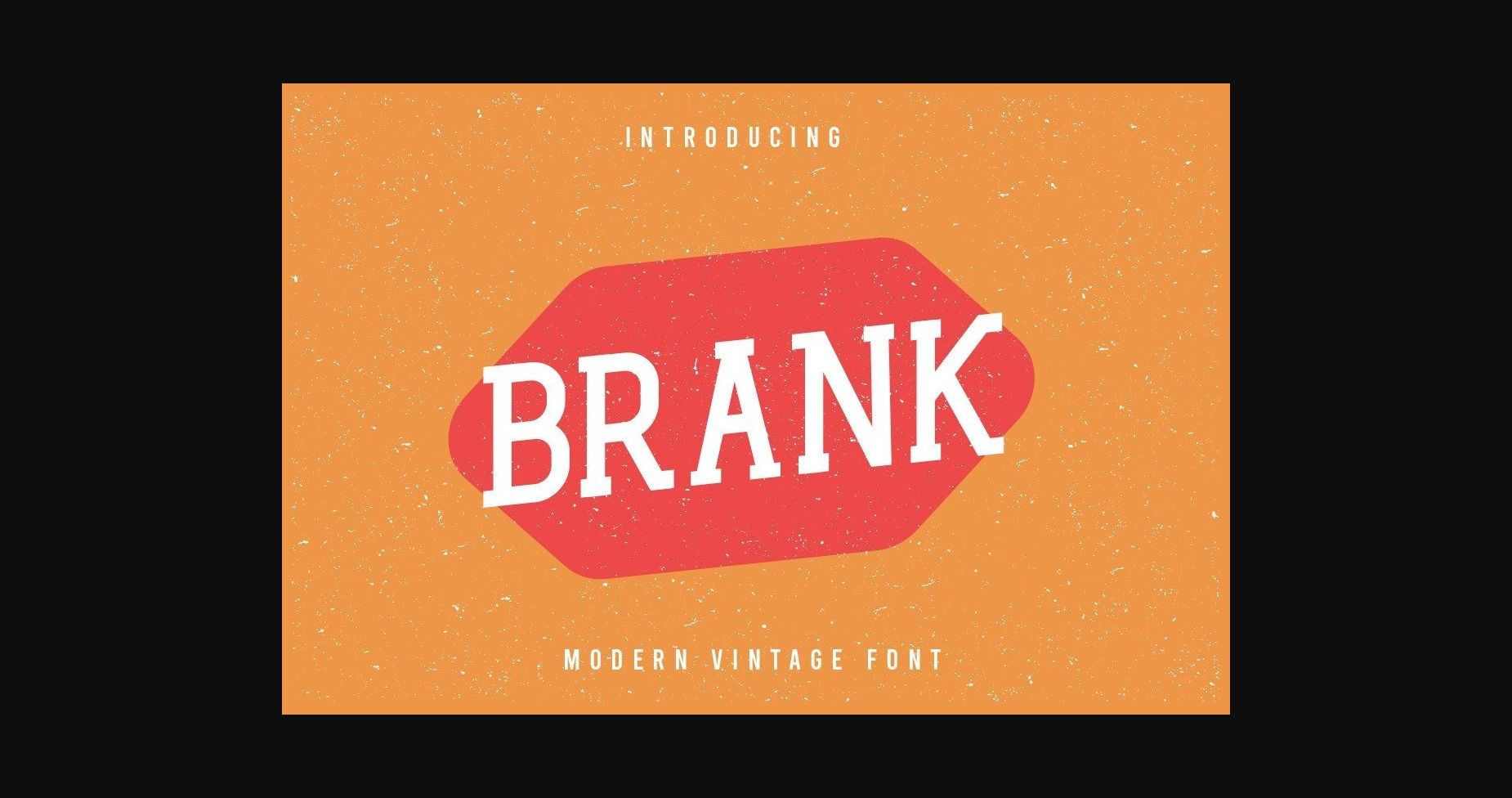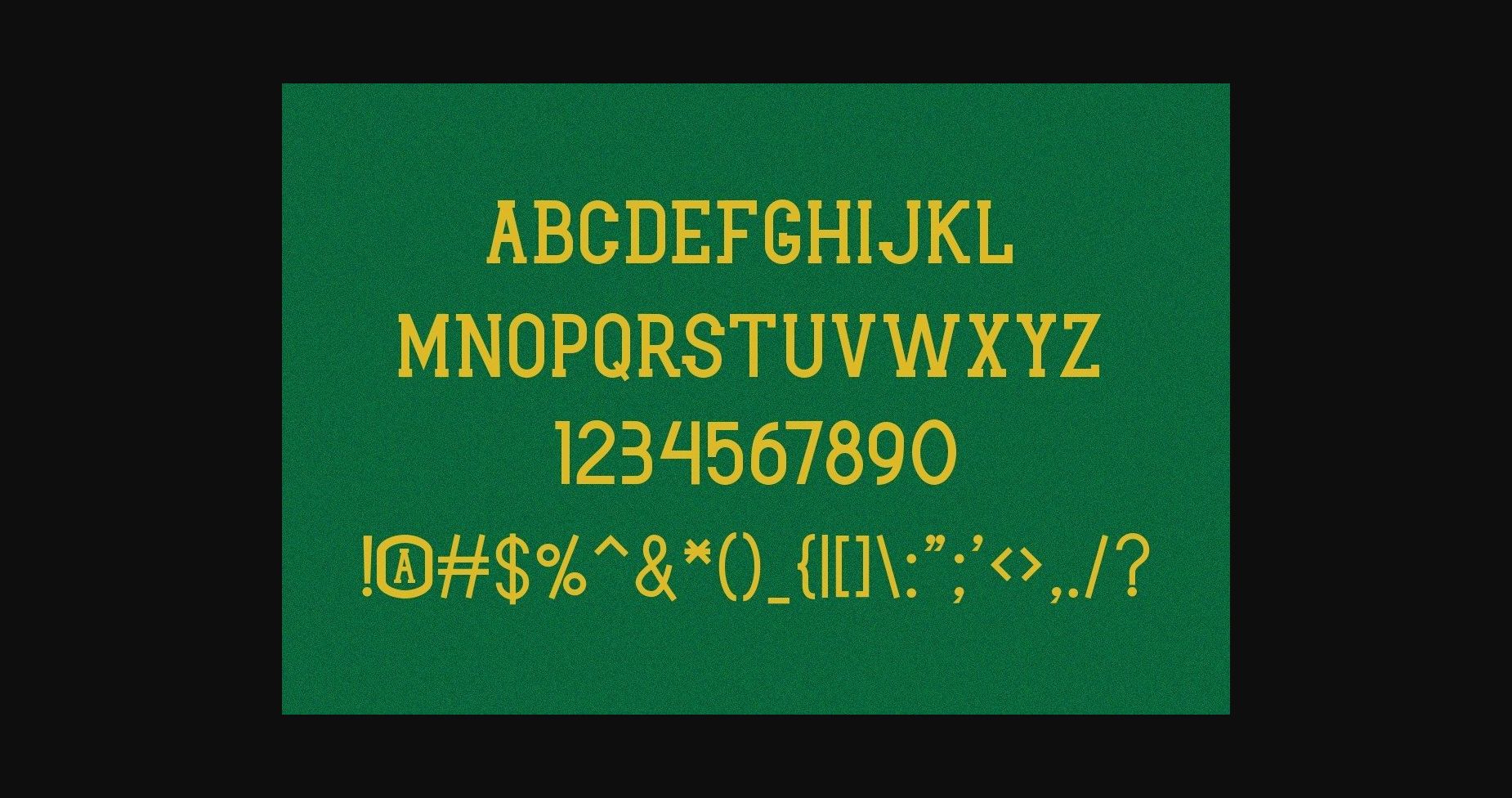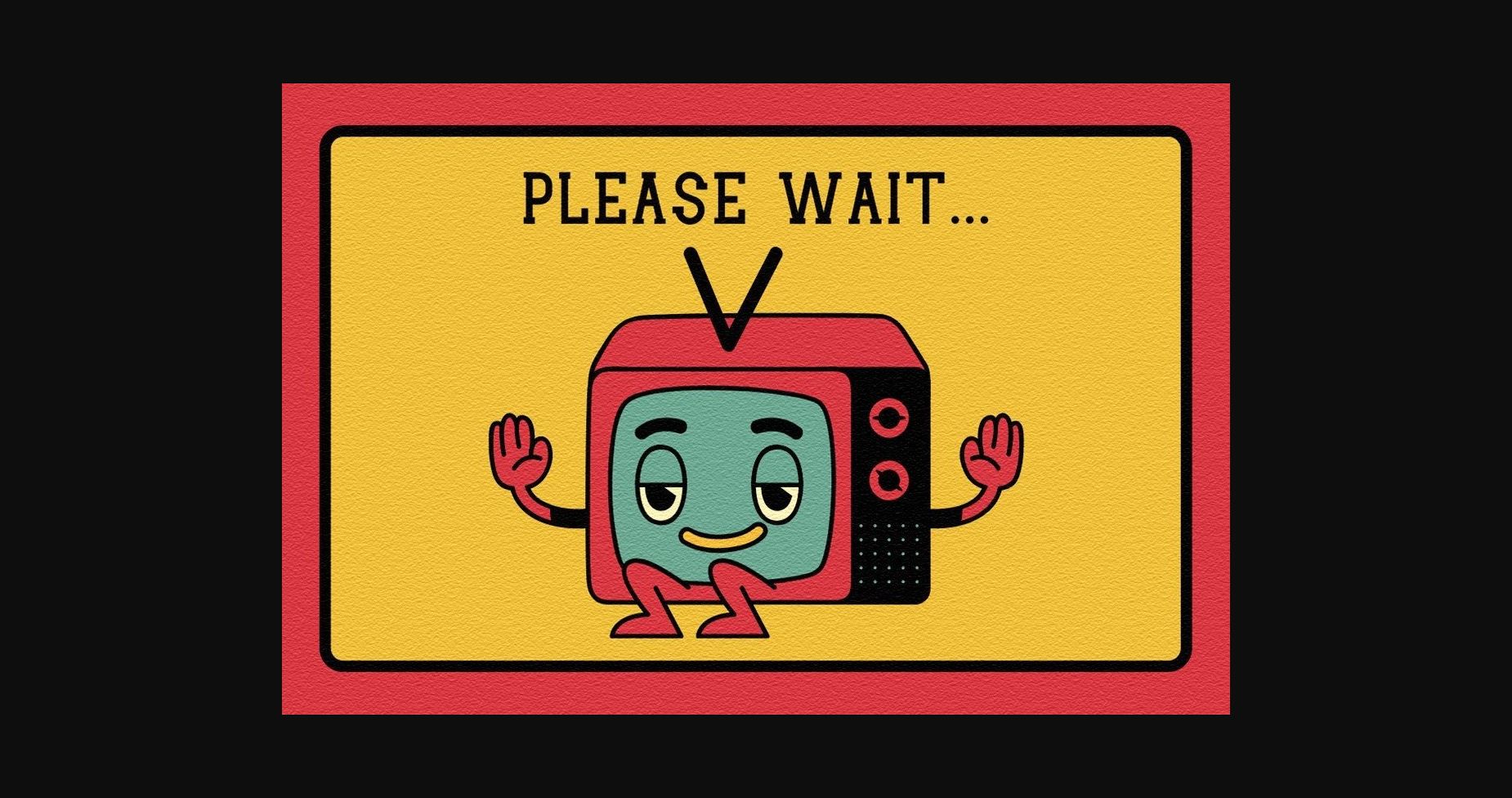
About Brank Font
Brank is a vintage font that has both a modern and retro look. Clear, clean, and fun, it will help you create projects inspired by the 60s or 70s layout designs. Add it now to your fonts library, and it will become an instant favorite!